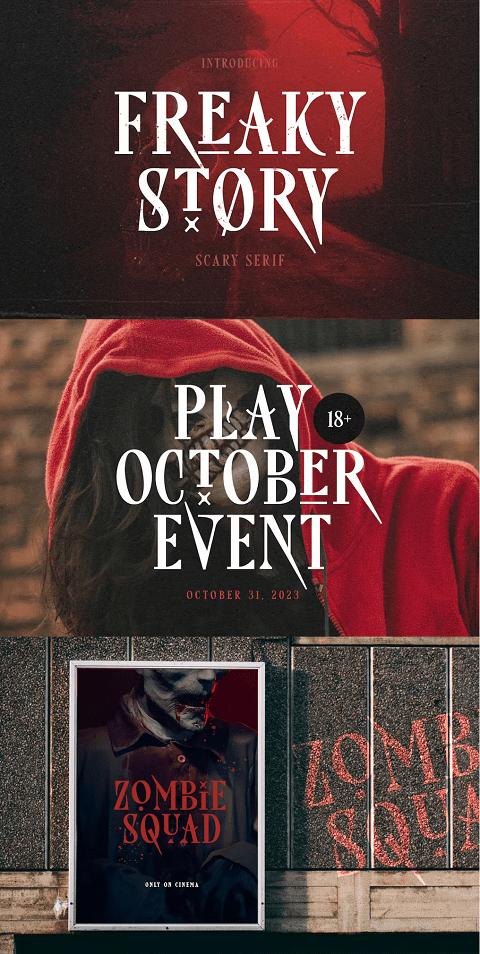
Freaky Story is a bold, authentic serif font. Suitable to a wide variety of designs due to its neat and simple style, this font has the potential to become your favorite go-to font, no matter the occasion!